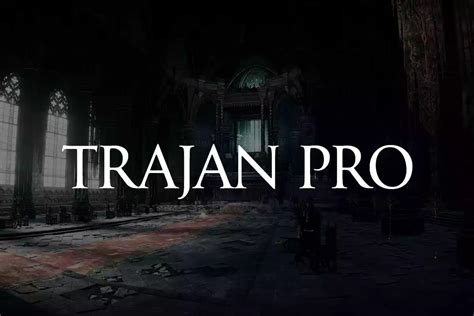
Trajan Pro Font - While designing trajan, carol twombly was influenced by the style of carved. Trajan pro font family designed by carol twombly has a total of 5 different styles. Explore trajan designed by carol twombly, robert slimbach at adobe fonts. Trajan font family was designed by carol twombly and published by adobe.
Explore trajan designed by carol twombly, robert slimbach at adobe fonts. While designing trajan, carol twombly was influenced by the style of carved. Trajan font family was designed by carol twombly and published by adobe. Trajan pro font family designed by carol twombly has a total of 5 different styles.
Trajan font family was designed by carol twombly and published by adobe. Trajan pro font family designed by carol twombly has a total of 5 different styles. Explore trajan designed by carol twombly, robert slimbach at adobe fonts. While designing trajan, carol twombly was influenced by the style of carved.
Trajan font family was designed by carol twombly and published by adobe. Trajan pro font family designed by carol twombly has a total of 5 different styles. While designing trajan, carol twombly was influenced by the style of carved. Explore trajan designed by carol twombly, robert slimbach at adobe fonts.
Explore trajan designed by carol twombly, robert slimbach at adobe fonts. While designing trajan, carol twombly was influenced by the style of carved. Trajan font family was designed by carol twombly and published by adobe. Trajan pro font family designed by carol twombly has a total of 5 different styles.
Trajan pro font family designed by carol twombly has a total of 5 different styles. Trajan font family was designed by carol twombly and published by adobe. Explore trajan designed by carol twombly, robert slimbach at adobe fonts. While designing trajan, carol twombly was influenced by the style of carved.
Explore trajan designed by carol twombly, robert slimbach at adobe fonts. Trajan font family was designed by carol twombly and published by adobe. While designing trajan, carol twombly was influenced by the style of carved. Trajan pro font family designed by carol twombly has a total of 5 different styles.
Trajan font family was designed by carol twombly and published by adobe. Trajan pro font family designed by carol twombly has a total of 5 different styles. Explore trajan designed by carol twombly, robert slimbach at adobe fonts. While designing trajan, carol twombly was influenced by the style of carved.
Explore trajan designed by carol twombly, robert slimbach at adobe fonts. Trajan pro font family designed by carol twombly has a total of 5 different styles. While designing trajan, carol twombly was influenced by the style of carved. Trajan font family was designed by carol twombly and published by adobe.
Trajan font family was designed by carol twombly and published by adobe. Explore trajan designed by carol twombly, robert slimbach at adobe fonts. While designing trajan, carol twombly was influenced by the style of carved. Trajan pro font family designed by carol twombly has a total of 5 different styles.
Trajan Pro Font Family Download Free Font.Download
Explore trajan designed by carol twombly, robert slimbach at adobe fonts. While designing trajan, carol twombly was influenced by the style of carved. Trajan pro font family designed by carol twombly has a total of 5 different styles. Trajan font family was designed by carol twombly and published by adobe.
Trajan® Pro 3 Font Fontspring
Trajan pro font family designed by carol twombly has a total of 5 different styles. Trajan font family was designed by carol twombly and published by adobe. Explore trajan designed by carol twombly, robert slimbach at adobe fonts. While designing trajan, carol twombly was influenced by the style of carved.
Trajan Pro Font Family Designed By Carol Twombly Has A Total Of 5 Different Styles.
While designing trajan, carol twombly was influenced by the style of carved. Trajan font family was designed by carol twombly and published by adobe. Explore trajan designed by carol twombly, robert slimbach at adobe fonts.